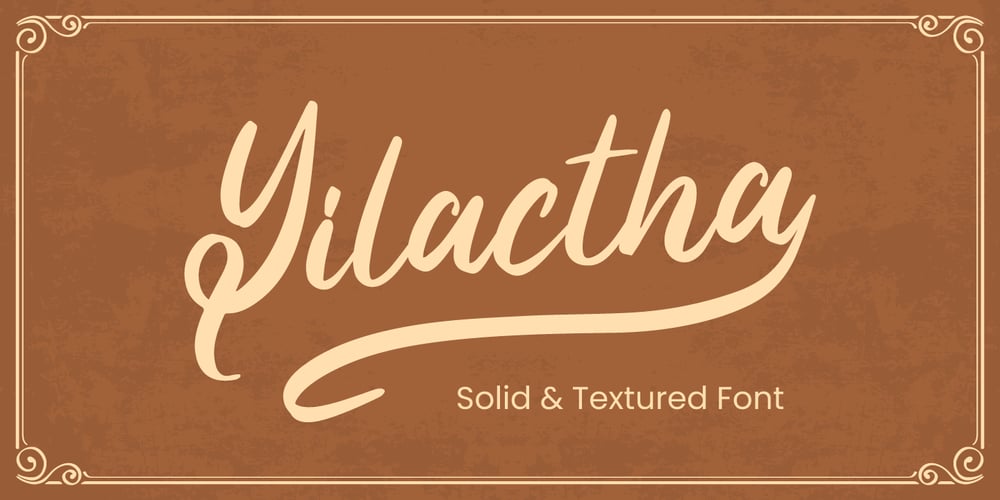
Yilactha
Yilactha font
Yilactha Font Family was designed by Fadli Ramadhan Iskandar and published by Attype Studio. Yilactha contains 2 styles and family package options. Introducing Yilactha – Inspired by typeface on 70s era, Yilactha has the vintage font & retro font with two style solid & textured.Two style Font: solid & textured.Yilactha is perfect for children product, branding, logo, invitation, stationery, product packaging, merchandise, monogram,blog design, game titles, cute style design, Book/Cover Title and more.Features :- Ending swash- Multilingual Support —Hope you enjoy with our font!Attype Studio